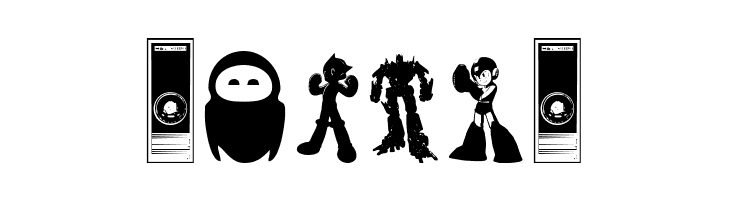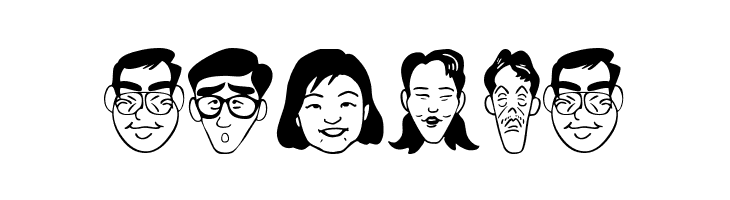
( Fonts by Rodrigo German - RASDESIGN )
Cartoon face-based decorative display font with expressive characters.
A decorative font made of diverse robot silhouettes.
( Fonts by www.fontmenu.com )
A decorative font featuring diverse dinosaur silhouettes for thematic designs.
( Fonts by Christophe Feray - www.wcfonts.com )
A display font made from high-heeled shoe silhouettes.